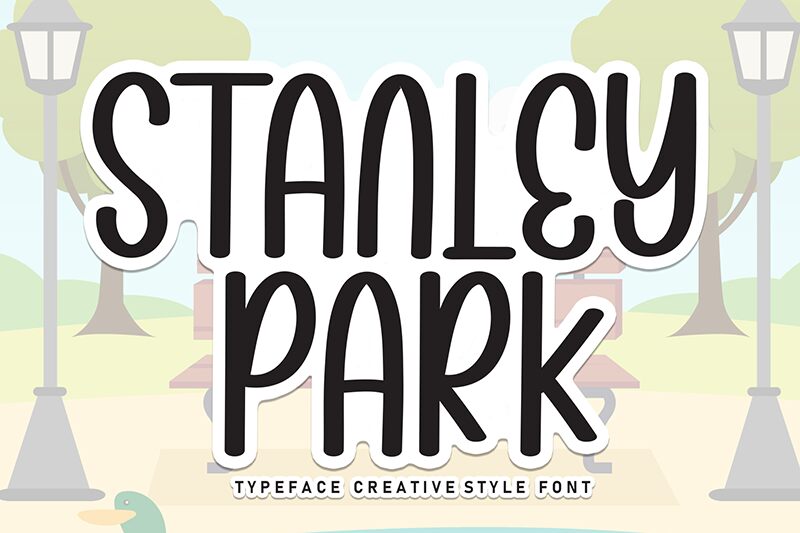
Stanley Park
Stanley Park font by Andi Moz is a delicate handwritten font that pairs flowing curves with an artistic feel. This condensed font presents itself naturally to readers while also maintaining its sense of modernism. The clean yet simple appearance is well-favored for large format usage such as packaging and social media posts.
Add this font in voicing book covers, flyers, posters, business cards, rubber stamps, wedding invitations, or thank you cards. Could work for blog titles as well! Get your creative juices flowing with the free handwritten font Stanley Park!